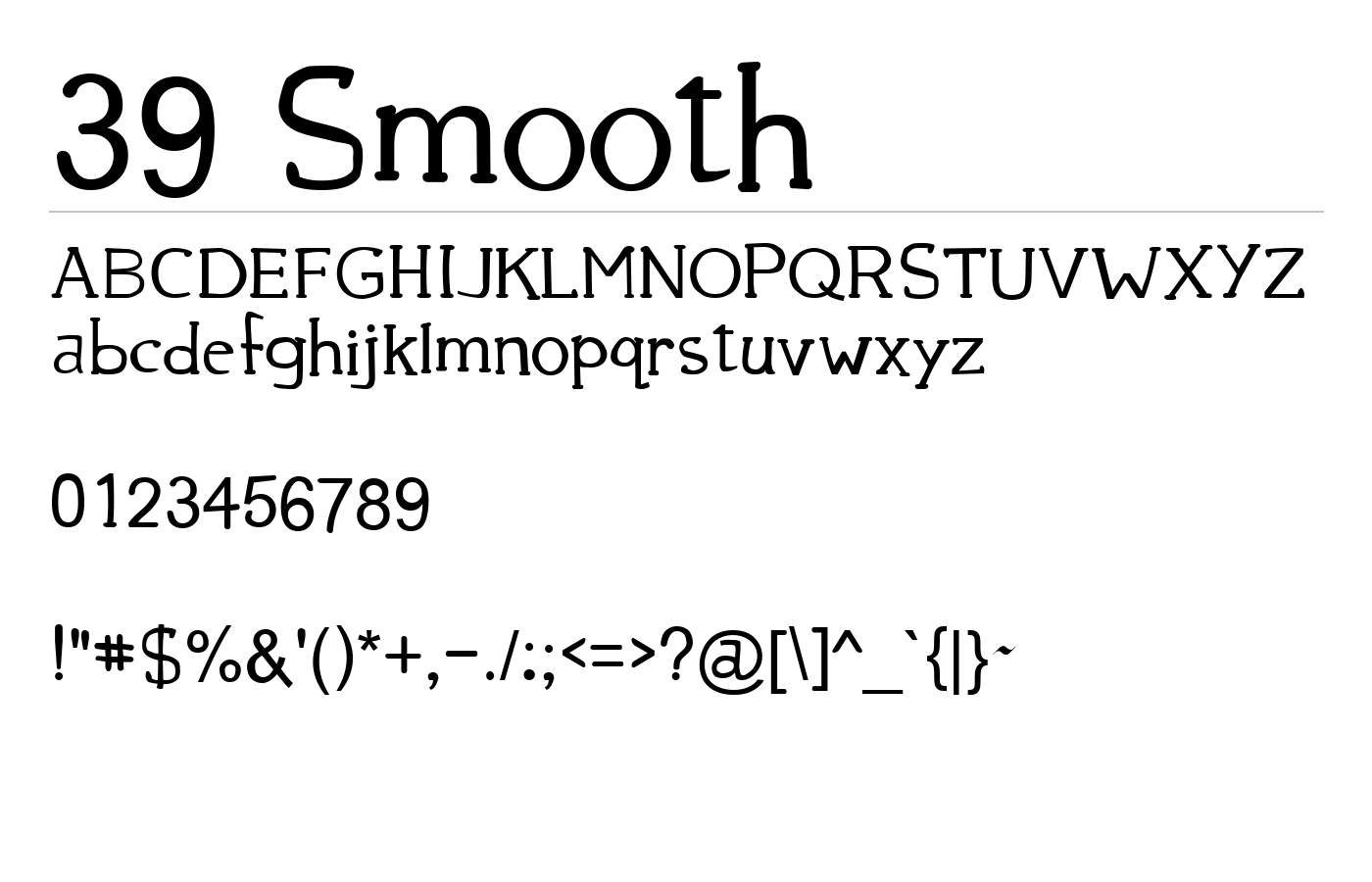
39 Smooth is a serif font with a gentle, handcrafted feel characterized by moderate contrast and slightly curved, bracketed serifs that lend it an approachable yet refined appearance. Its medium weight and open letterforms with subtle quirks make it ideal for projects seeking a blend of traditional elegance and casual charm. This font works well for editorial content, branding, and web use where readability and personality are both important.
39 Smooth Font
About 39 Smooth Font
| Font family | 39 Smooth Font |